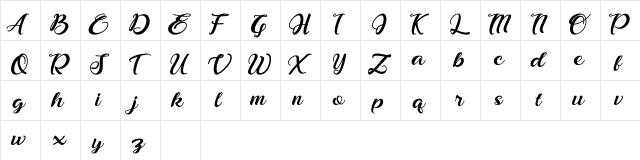
Bonjour Allgera Regular
| Foundry | Marchtwentype Studio |
| Designer | E. Nurcahyo |
Design Context for Bonjour Allgera Typeface
Bonjour Allgera is a composed and adaptable typeface that performs quietly and consistently across a wide range of design contexts.